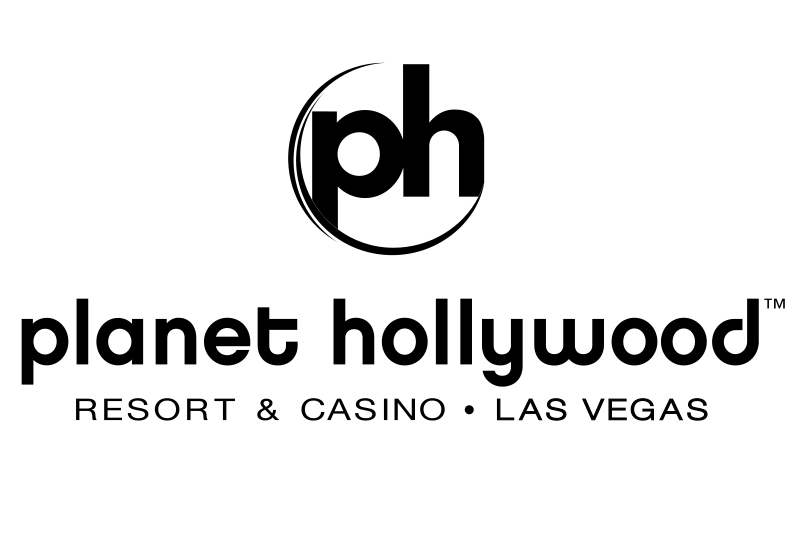
Planet Hollywood Font
EntertainmentPlanet Hollywood Resort & Casino is a hotel and casino located in Las Vegas, Nevada that features a Hollywood-themed decor and offers luxurious guest rooms, dining options, and entertainment experiences. The resort is popular for its location on the Las Vegas Strip and its extensive array of amenities.
The Planet Hollywood logo features the Chalet font, a geometric sans serif designed by House Industries. The text "Planet Hollyoo" is written in Chalet New York 1980, while the letters "w" and "d" are written in Chalet Tokyo.